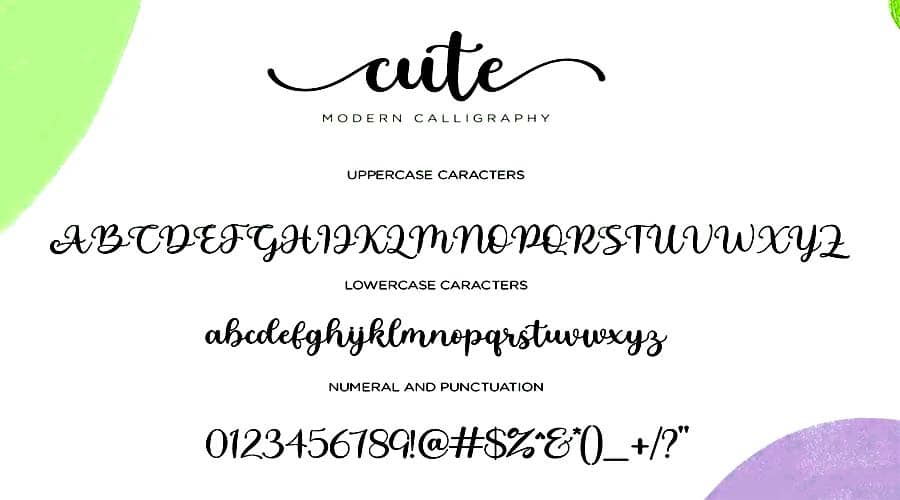
Cute Modern Calligraphy font
Cute Modern Calligraphy font is a splendid calligraphy and script font. On October 6, 2020, Francis Studio structured and made public the Font.
Cute Modern Calligraphy Font has a varying baseline, smooth lines, beautiful glyphs, and magnificent alternates. The Font is free to download and use for personal purposes. This Font is obtainable in TrueType and OpenType file types. Few similar fonts of Cute Modern Calligraphy font are Monthella Calligraphy Script Typeface, Amadea Modern Calligraphy Font, Nanshy Modern Calligraphy Font, Barelyn Calligraphy Script Font and so on.
Cute Modern Calligraphy Font is frequently used as a heading or subheading in a variety of advertisements. The advertisements are mostly based on social media. The Font is also used to describe products on the internet or on social media platforms. This Font also works great in wallpapers for its beautiful calligraphy vibe.
| Name | Cute Modern Calligraphy font |
| Style | Script, Calligraphy |
| Designer | Francis Studio |